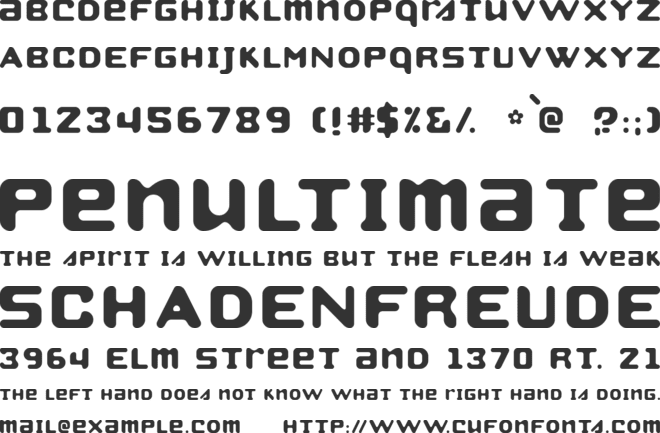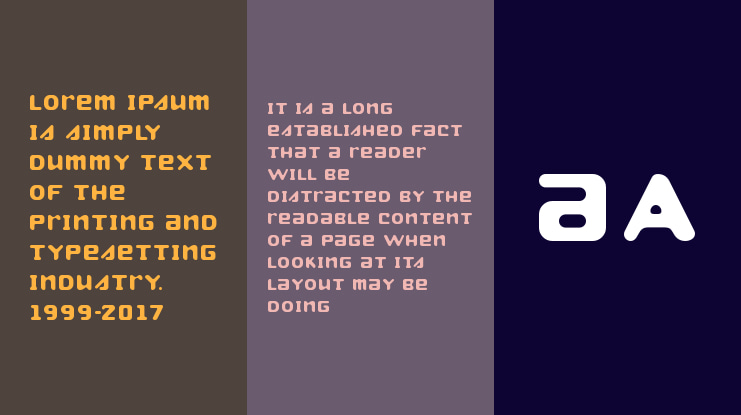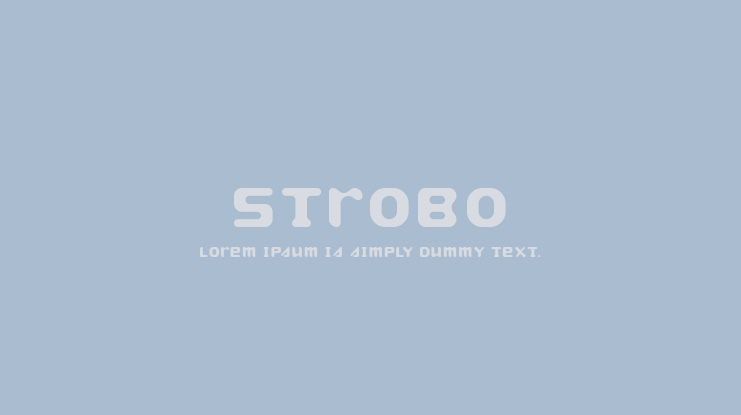
Strobo Font
With quirky 70's sci-fi movies like "Rollerball", "Silent Running" and Woody Allen's "Sleeper" in mind, I set out to create a unicase or uncial set somewhat akin to Amelia, the font on recent Stereolab releases (the name is derived from the song "Strobo Acceleration") and other "space age" fonts like Westminster. It didn't quite turn out the way I envisaged, but at least Strobo looks distinctive and sort of doovy.